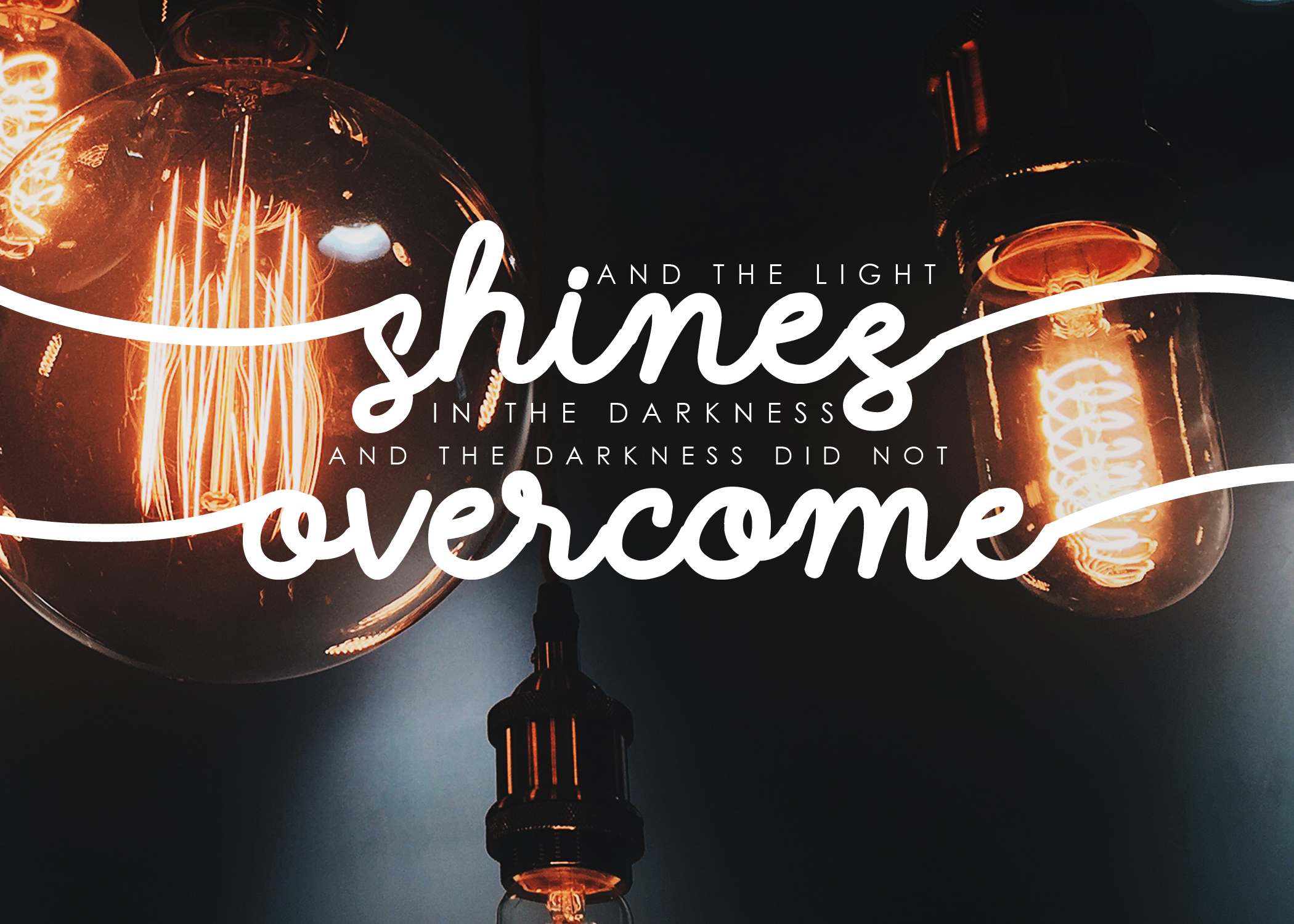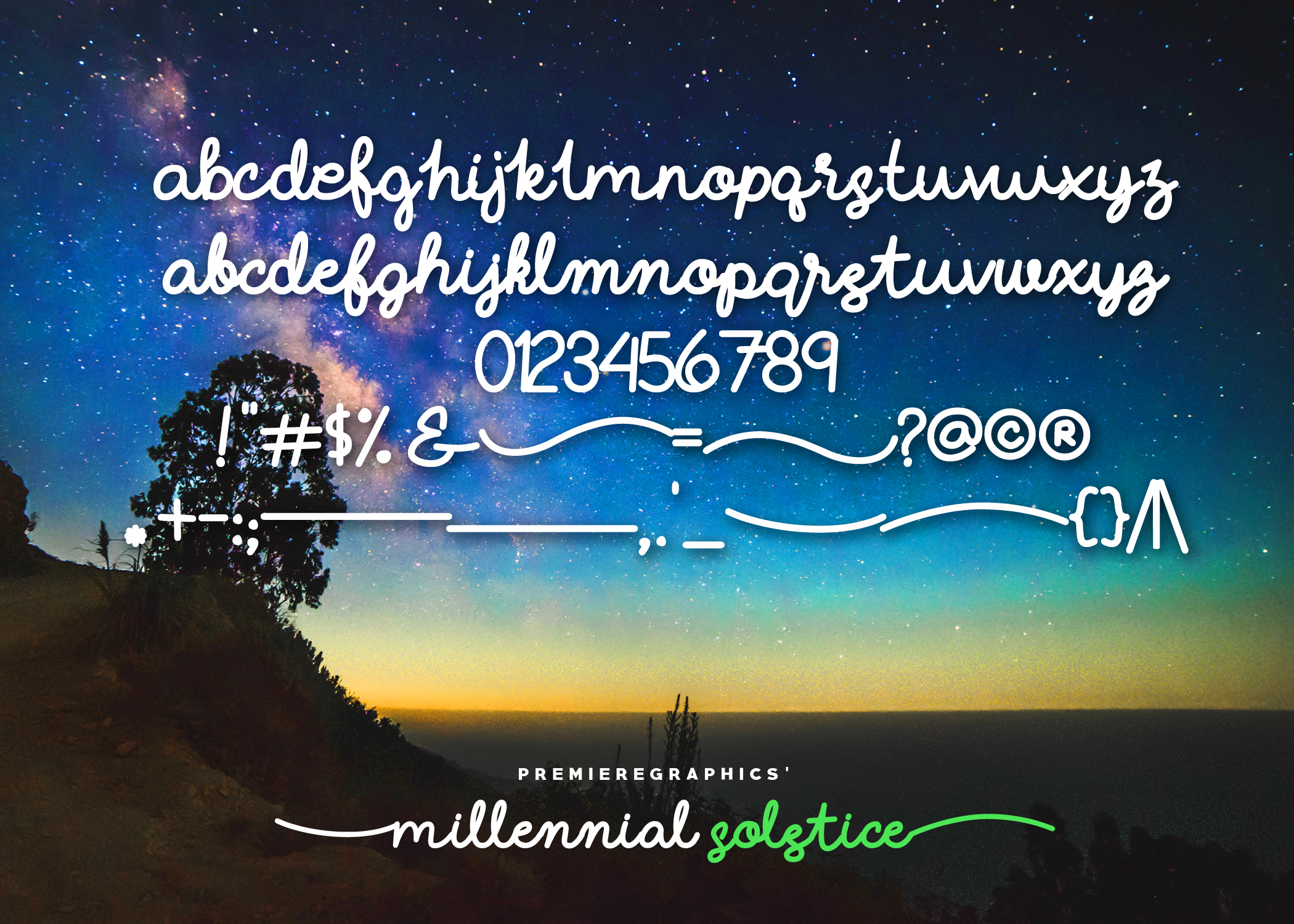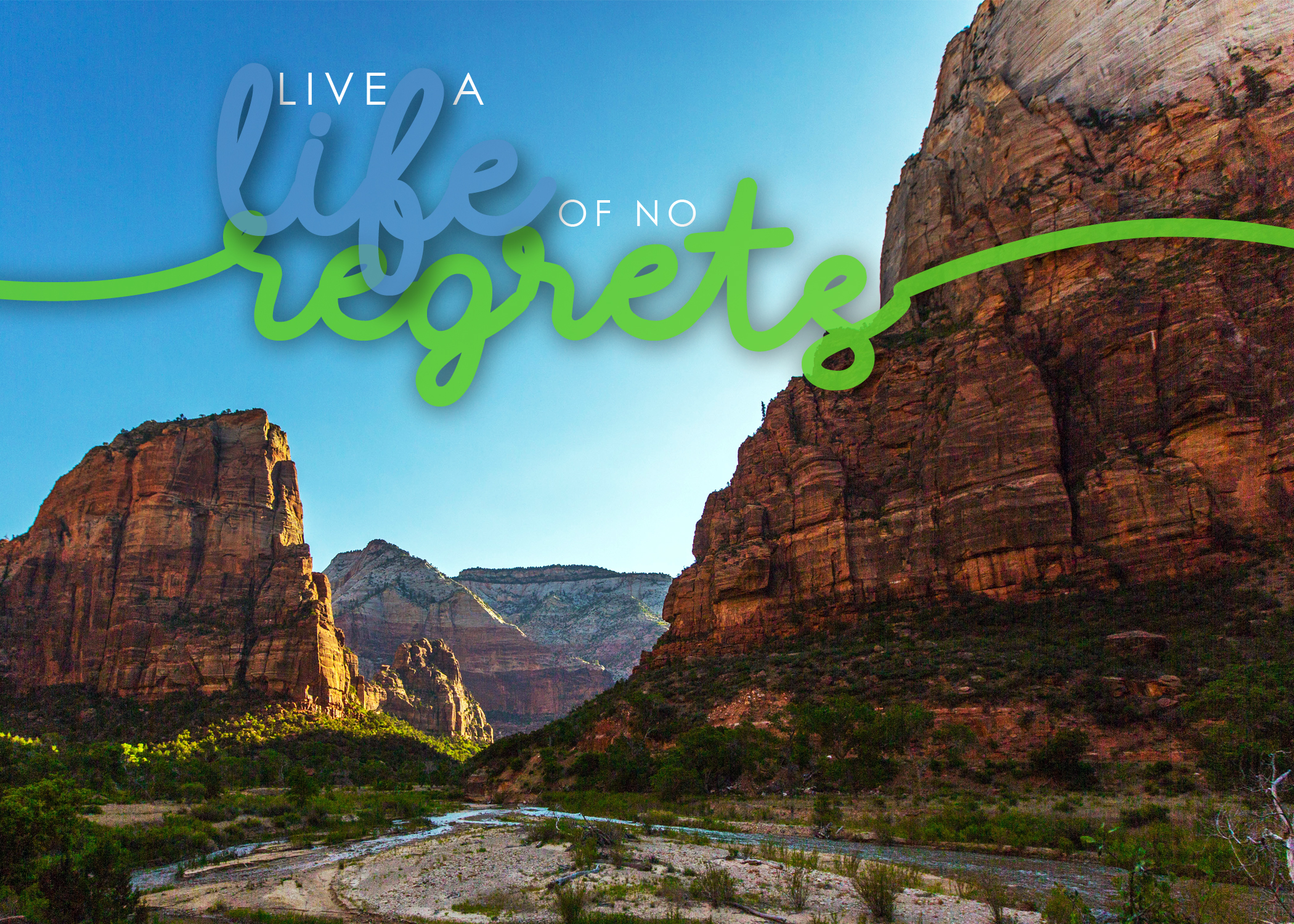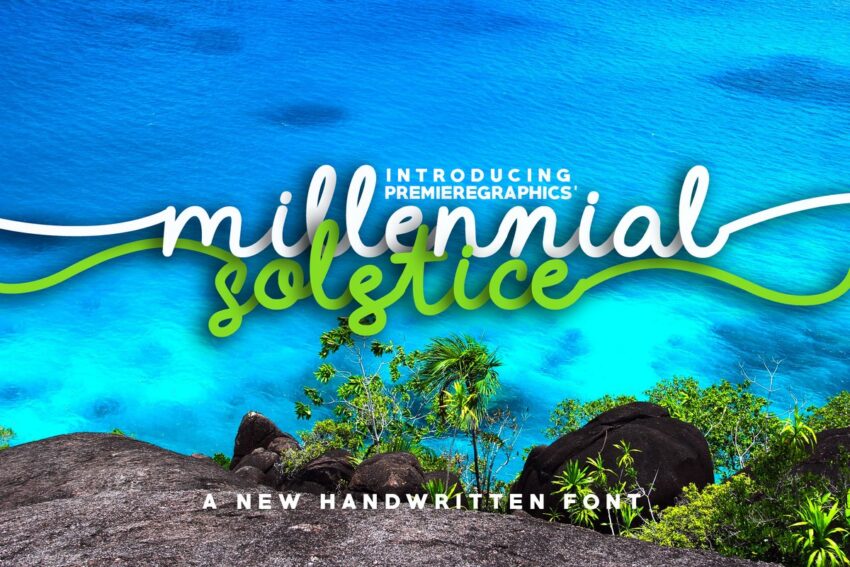
Introduction to Millennial Solstice Font
Millennial Solstice is a cursive, handwritten font.
Millennial Solstice Font offers exceptional quality and versatility, making it a valuable addition to your design toolkit. Whether you’re creating for personal projects or commercial use, Millennial Solstice Font delivers professional results.